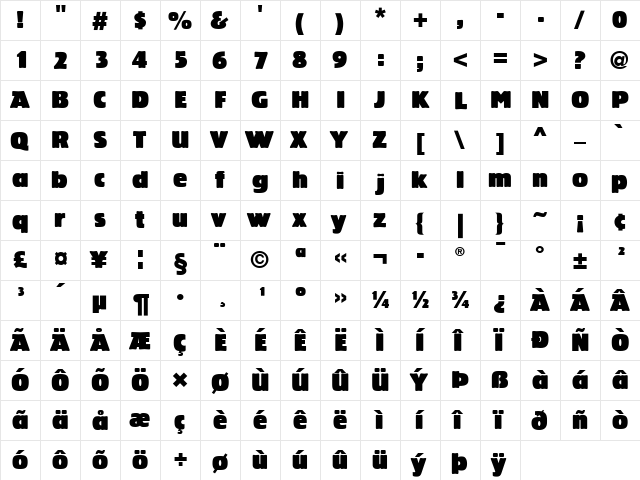
LTBariton Regular
Design Context for LTBariton Typeface
LTBariton is a composed and adaptable typeface that performs quietly and consistently across a wide range of design contexts.